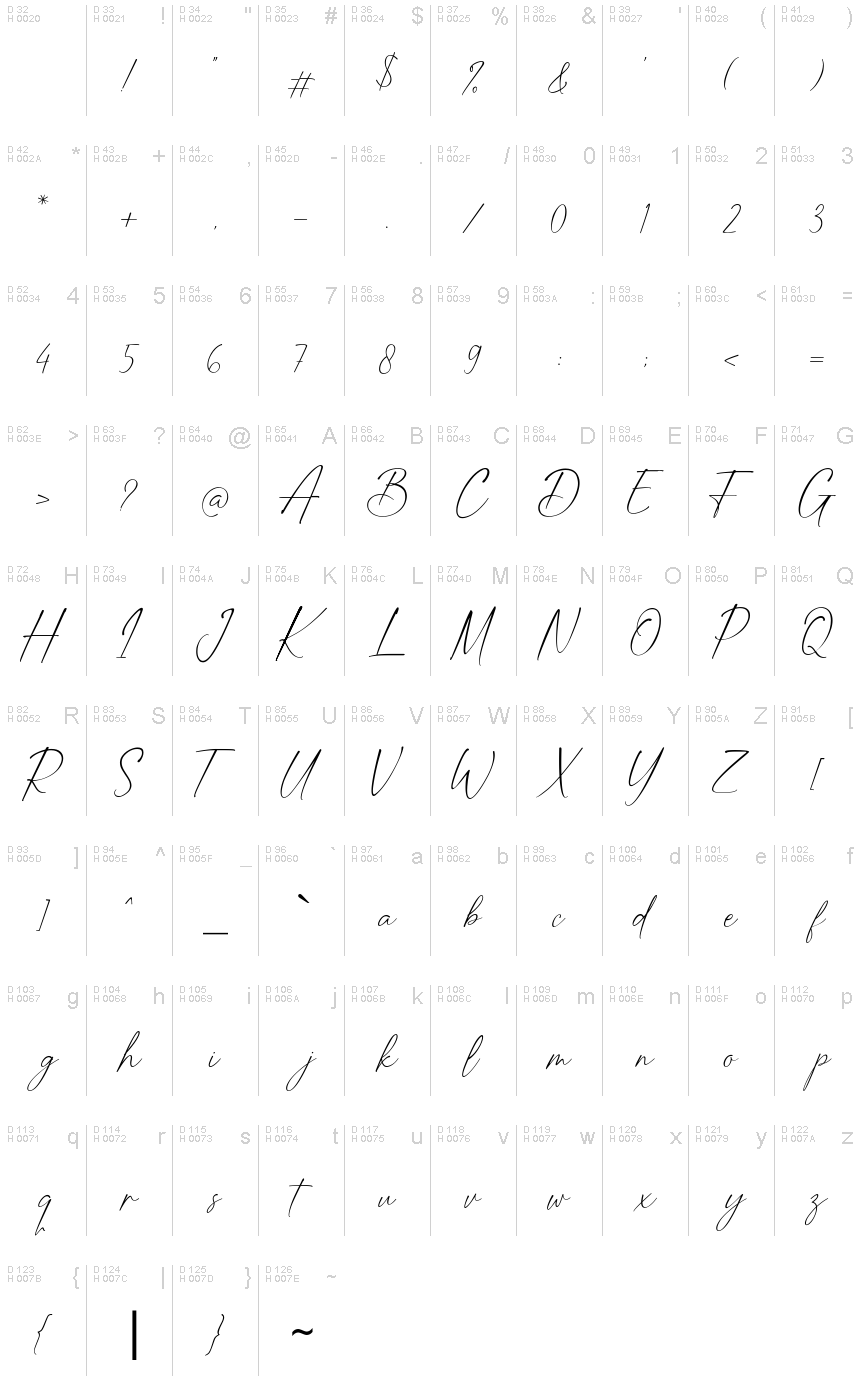
Better Smile
Better Smile, a creation by Heinzel Std, evokes the charm of personal touch with its handwritten style. It carries the lightness of a carefree doodle while maintaining an air of elegance and fluidity. Each stroke seems to dance with a joyful ease, suggesting a casual yet sophisticated vibe. The font's gentle curves and slight slant give it an approachable and friendly demeanor, making it perfect for designs that aim to feel intimate and inviting.
In application, Better Smile lends itself beautifully to projects that require a touch of personality—think wedding invitations, boutique branding, or editorial work that desires an organic feel. Its aesthetic appeal resonates particularly well in contexts where warmth and authenticity are key.